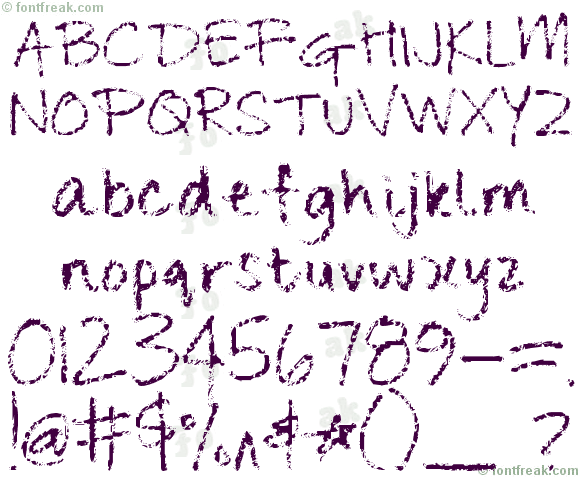
The "Change Tomorrow Today" font by Kimberly Geswein is a charming handwritten script that captures an organic, personal touch, making it ideal for a variety of creative projects. This font showcases a unique blend of casual elegance with its slightly irregular strokes and playful curves. The moderate stroke weight and natural flow give it a warm, inviting appearance, while the ample spacing between letters enhances readability, making it suitable for both print and digital applications.
This font shines in specific use cases, such as wedding invitations, where its romantic flair can beautifully complement the occasion. It's also perfect for personal branding materials, including logos and business cards, as it conveys a sense of authenticity and approachability. Content creators will find it useful for social media graphics, adding a personalized vibe to posts, while small business owners can utilize it for café menus or boutique signage to create a welcoming atmosphere.
The target audience for the "Change Tomorrow Today" font includes graphic designers looking to add a touch of individuality to their projects, small business owners who want to make a memorable impression, and content creators seeking a distinctive look for their online presence.
What sets the "Change Tomorrow Today" font apart is its ability to evoke a sense of connection and warmth, making it a go-to choice for anyone wanting to convey a heartfelt message. With its freeware licensing, users can enjoy the "Change Tomorrow Today font free download" and incorporate this delightful typeface into their designs without any cost, enhancing their creativity and visual storytelling.